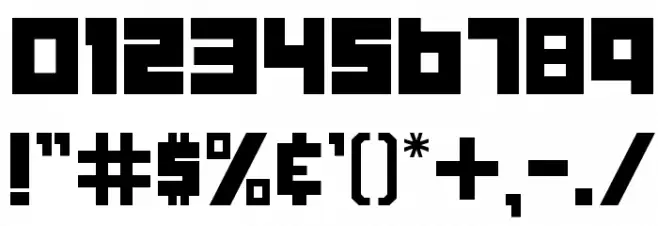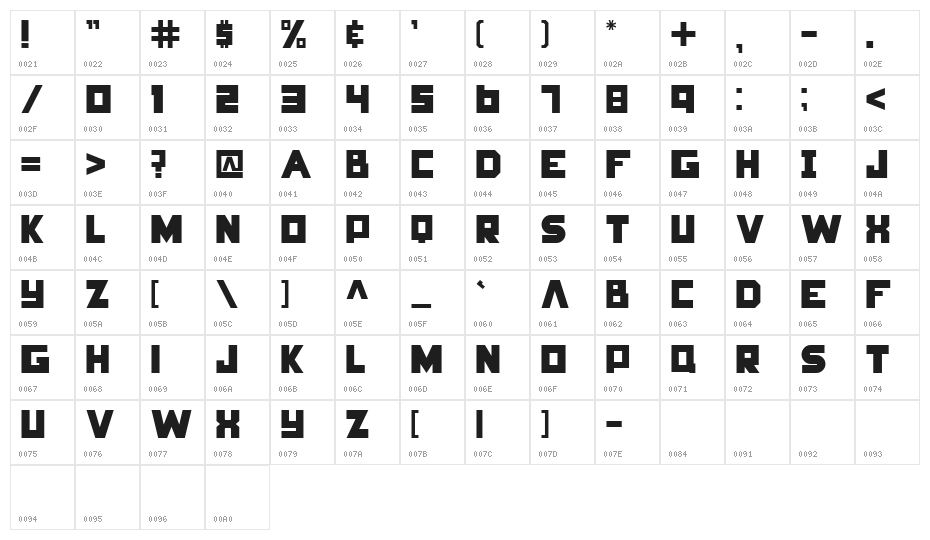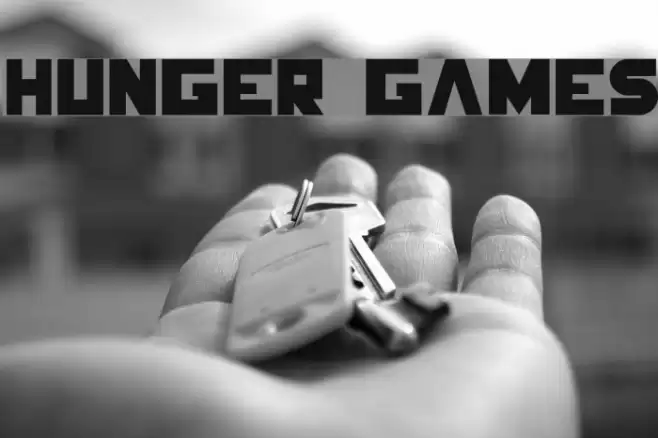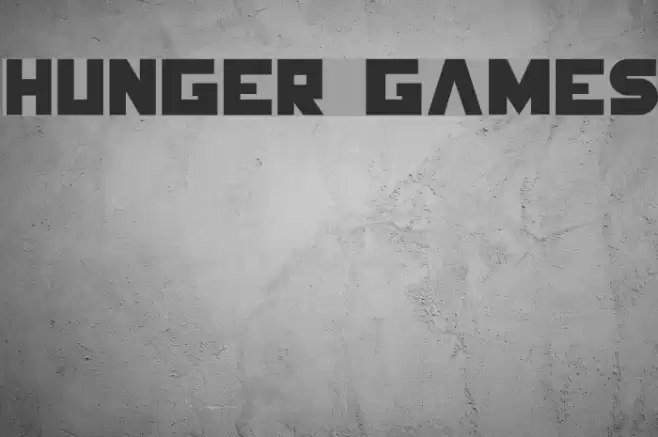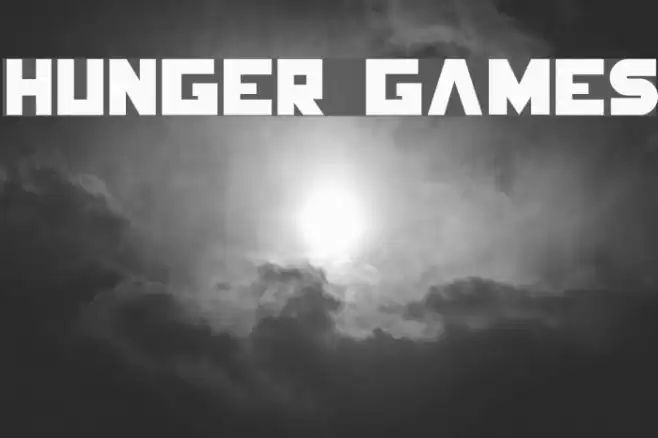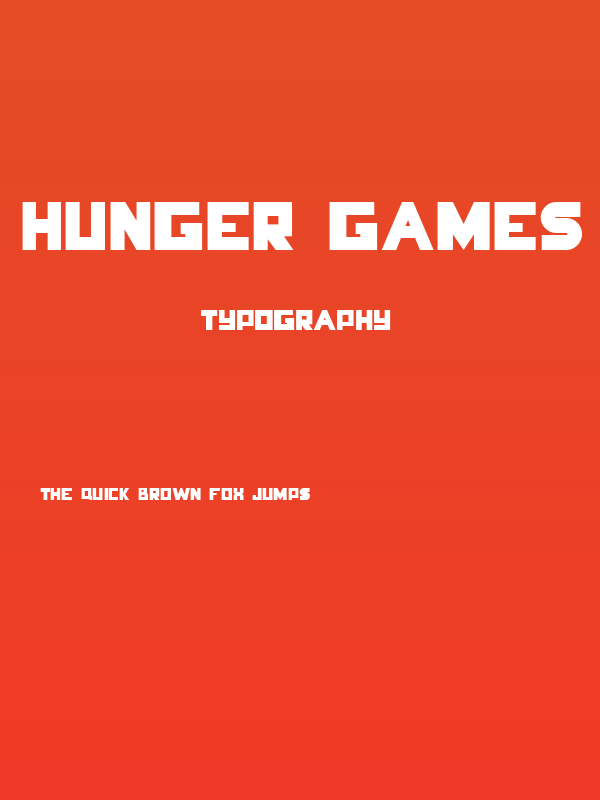
Hunger Games Font
Hunger Games Description
This font features a bold and geometric style with sharp, angular edges and a strong presence. The uppercase letters are uniform in height, creating a cohesive and structured appearance. The lowercase letters maintain the same boldness, with distinct shapes that complement the uppercase set. Numbers are equally bold, with a consistent width that enhances readability. Special characters follow the same geometric design, ensuring a seamless integration with the rest of the font. The overall design is modern and impactful, making it suitable for attention-grabbing projects.
| Proposed Projects | Ideal for movie posters, video game titles, branding, and any project requiring a strong, modern aesthetic. |